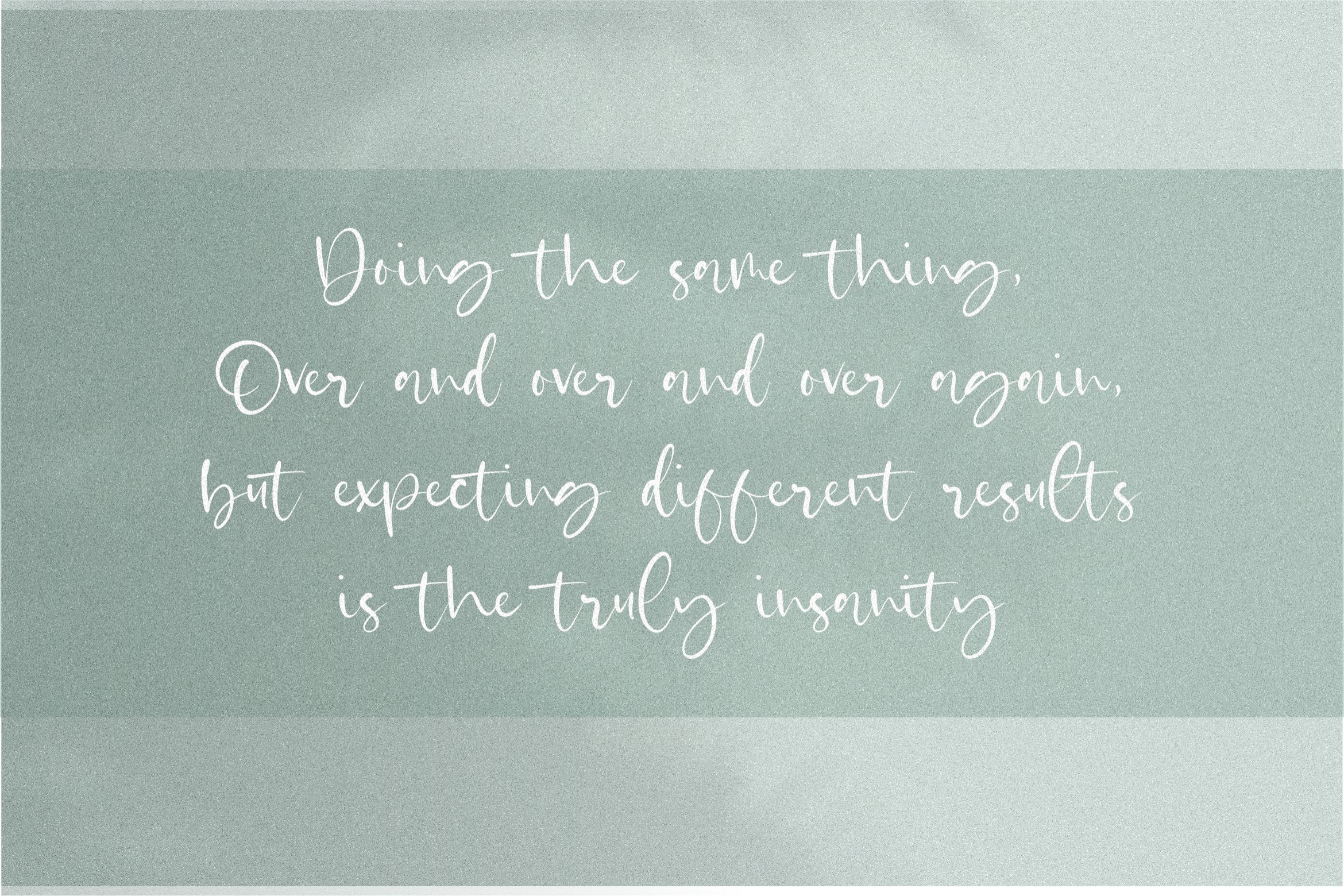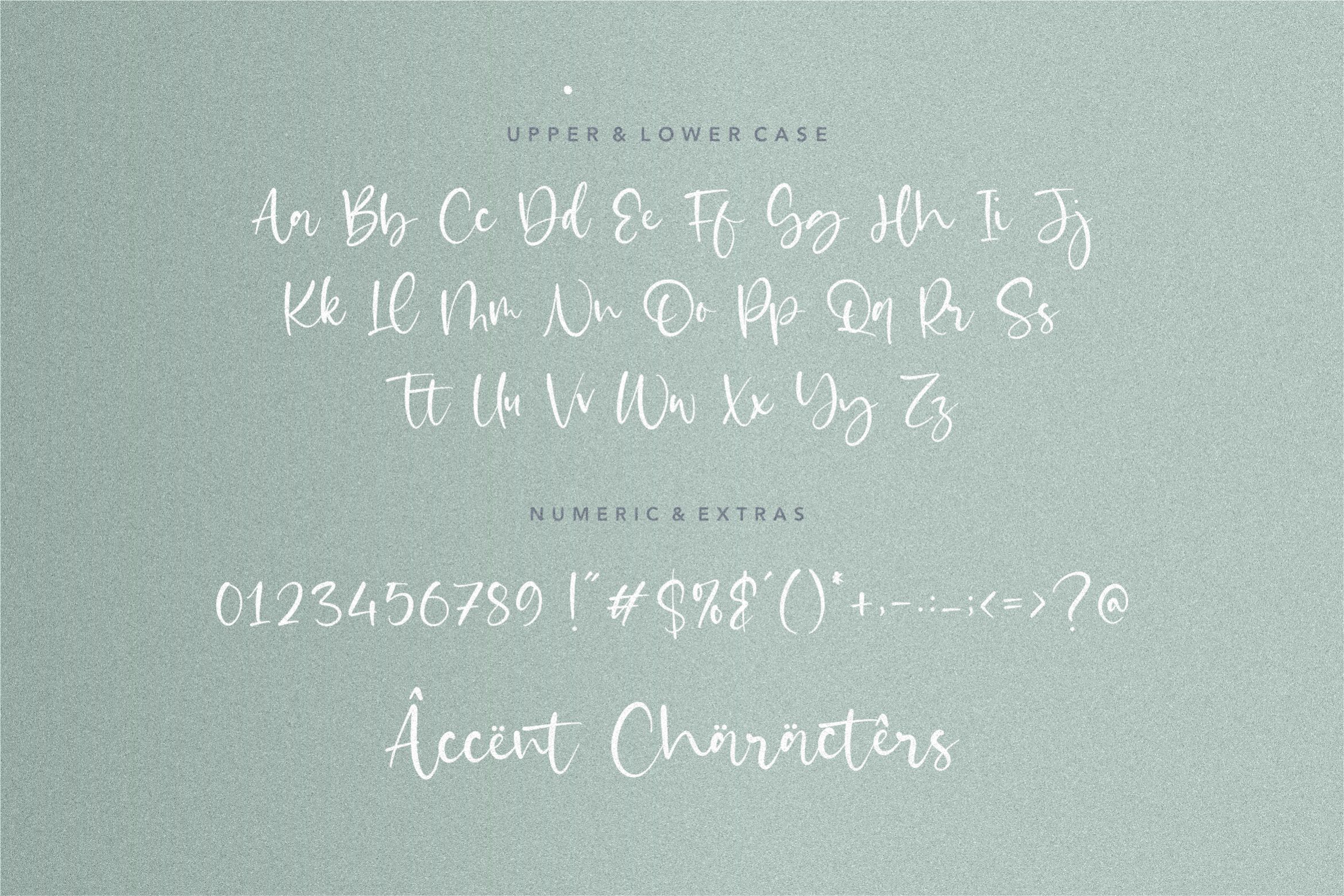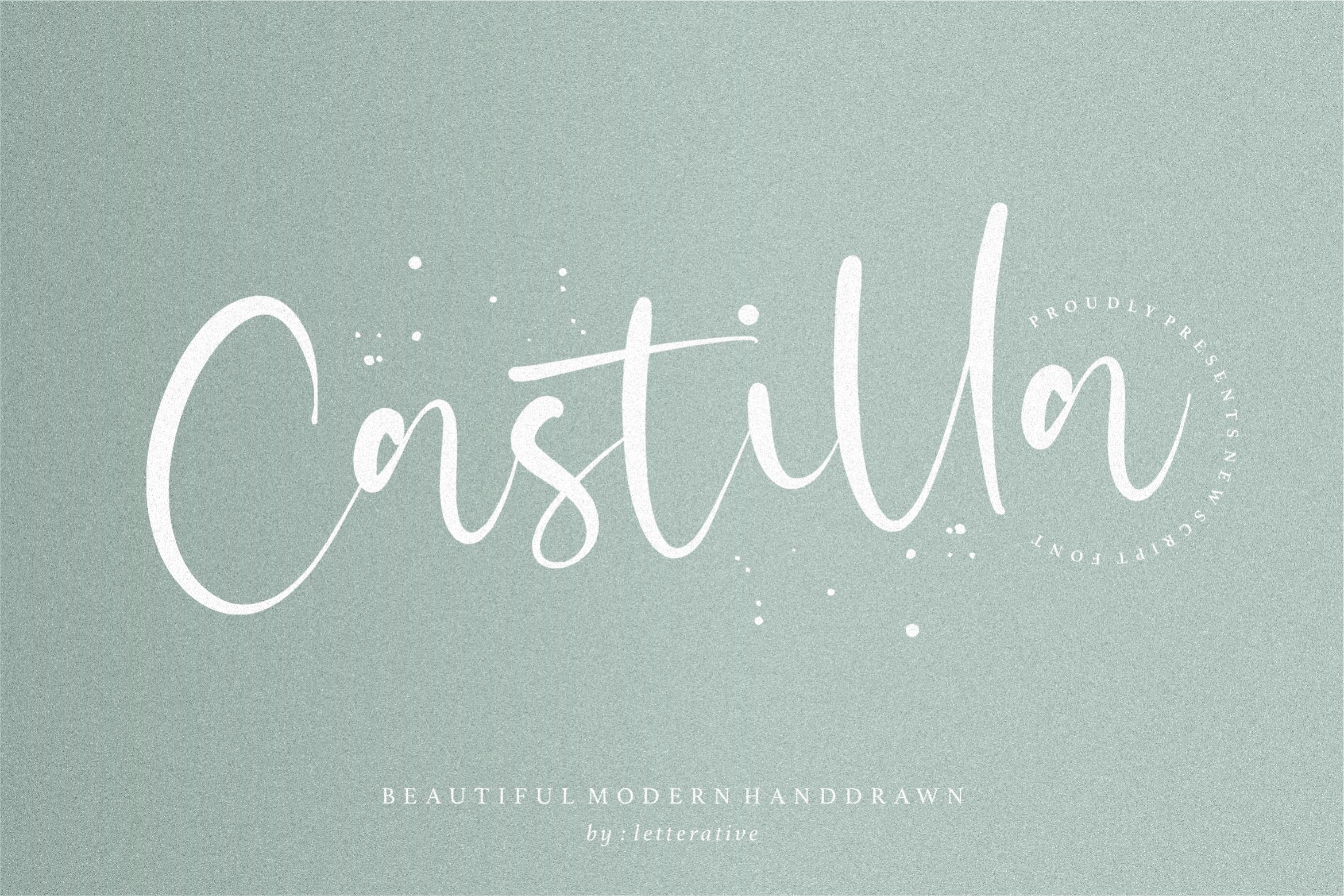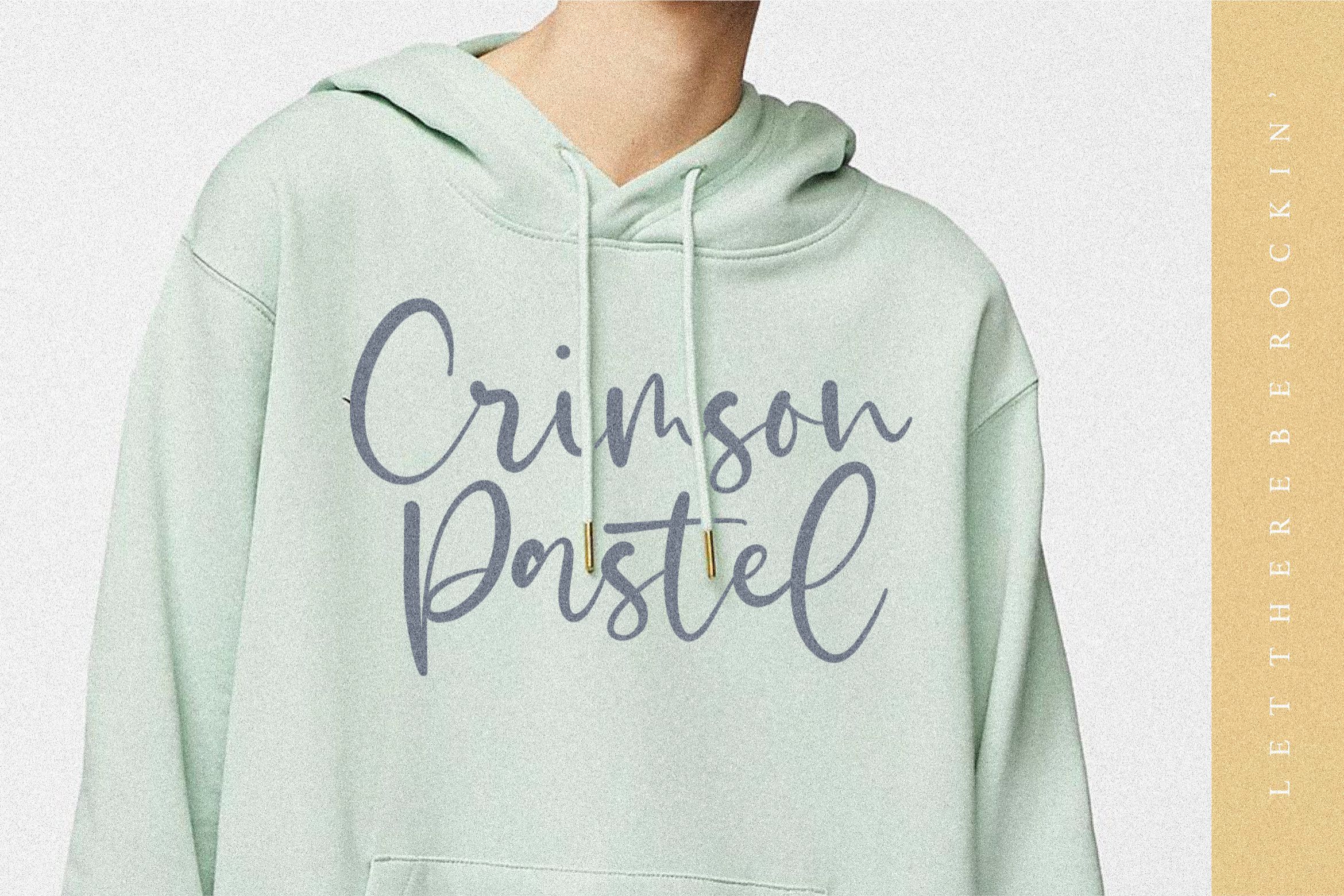
About Castilla is a Beautiful Modern Handdrawn Font
Introducing by Letterative Studio : Castilla Font Castilla is a Beautiful Modern Handdrawn Font Castilla is a sweet, relaxed and timeless handwritten font. This gentle font will look gorgeous on a variety of design ideas. It will add a joyful and romantic touch to each of your projects! This font includes : TTF and OTF Castilla also multilingual support Enjoy the font! Feel free to comment or feedback Send me PM or email Thank you!